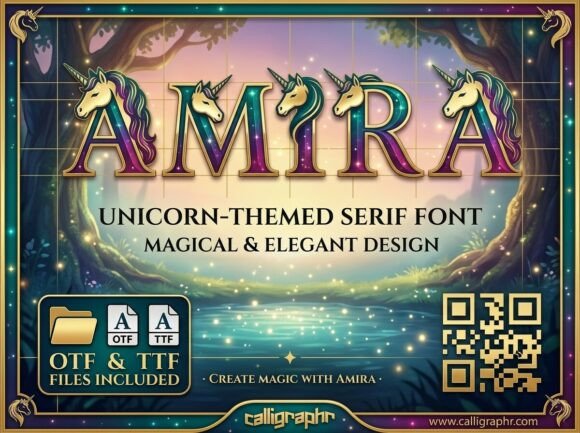
Introducing Amira Font: The Ultimate Decorative Display Font for Creative Projects
Are you tired of using the same old fonts for your designs? Look no further than Amira Font, a stunning decorative display font that’s sure to turn heads. With its unique artistic elements and strong visual personality, this font is perfect for creators who want to break away from the ordinary and make a statement.
Amira Font is designed to be the center of attention, featuring intricate details and creative letterforms that are sure to grab the viewer’s eye. Whether you’re designing a modern poster, a unique brand identity, or eye-catching social media content, this font adds an instant “wow” factor to any project. With Amira Font, you can create high-impact designs that demand attention and leave a lasting impression.
Amira Font is incredibly versatile, making it perfect for a wide range of design projects. Here are just a few examples of how you can use this amazing font:
- Poster Design: Create headlines that people can’t look away from. Amira Font is perfect for creating eye-catching posters that demand attention.
- Branding & Logos: Build a unique identity for creative businesses. With its intricate details and creative letterforms, Amira Font is ideal for creating artistic logos that stand out from the crowd.
- Apparel & Merch: Perfect for T-shirts, hoodies, and tote bag designs. Amira Font adds a touch of elegance and sophistication to any apparel or merchandise design.
- Social Media: Make your quotes and announcements stand out in the feed. Amira Font is perfect for creating eye-catching social media content that grabs attention and encourages engagement.
- Packaging: Give your products a premium feel with Amira Font. This font is perfect for creating labels, packaging, and other marketing materials that require a touch of elegance and sophistication.
Why Choose Amira Font?
So why choose Amira Font over other decorative display fonts? Here are just a few reasons why this font stands out from the crowd:
- Unique Artistic Elements: Amira Font features unique artistic elements that set it apart from other fonts. Its intricate details and creative letterforms make it perfect for designers who want to create something truly unique.
- Strong Visual Personality: Amira Font has a strong visual personality that demands attention. Whether you’re designing a poster, logo, or social media content, this font is sure to grab the viewer’s eye.
- Professional and Polished Finish: Despite its decorative nature, Amira Font maintains a professional and polished finish that’s perfect for high-end designs.
- Versatility: Amira Font is incredibly versatile, making it perfect for a wide range of design projects.
Tips for Using Amira Font
Here are a few tips for using Amira Font in your designs:
- Use it sparingly: Amira Font is a decorative display font, so it’s best to use it sparingly. Use it for headlines, titles, or other key elements that need to grab attention.
- Pair it with a simple font: Amira Font works best when paired with a simple font. Use it for headlines and a simple font for body text to create a striking contrast.
- Experiment with colors: Amira Font looks amazing in a variety of colors. Experiment with different colors and gradients to find the perfect look for your design.
Amira Font is a stunning decorative display font that’s perfect for designers who want to create high-impact designs that demand attention. With its unique artistic elements, strong visual personality, and versatility, this font is ideal for a wide range of design projects. Whether you’re designing a poster, logo, social media content, or packaging, Amira Font adds an instant “wow” factor that sets your design apart from the crowd. So why settle for ordinary fonts when you can use Amira Font to create something truly extraordinary?